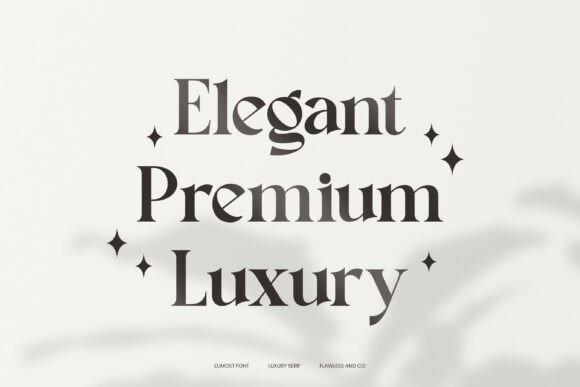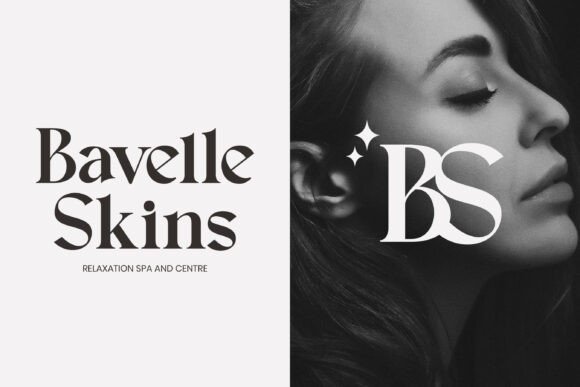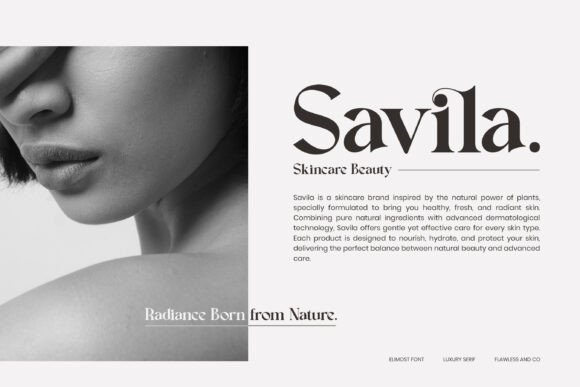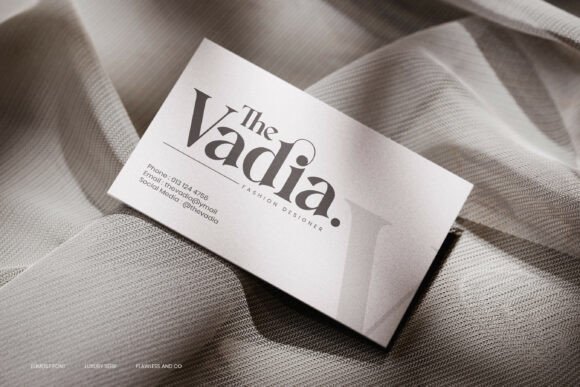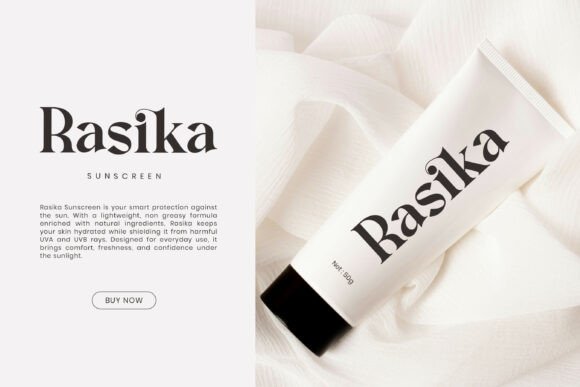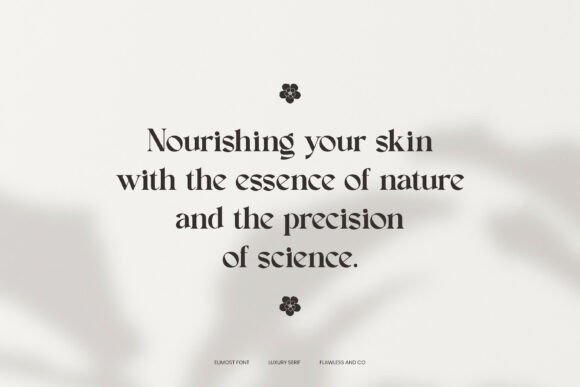
Introducing Elimost Font: The Epitome of Luxury and Sophistication
In the world of typography, few fonts manage to convey the essence of luxury and sophistication as effortlessly as Elimost. This stunning serif typeface is the perfect blend of modern elegance and timeless design, making it an indispensable tool for designers and crafters looking to elevate their projects to new heights. With its refined letterforms, graceful curves, and striking contrasts, Elimost is the ultimate choice for those seeking to add a touch of premium style to their creations.
The Design Philosophy Behind Elimost
Elimost is more than just a font – it’s a design statement. Crafted with versatility in mind, this luxury serif typeface balances modern beauty with classic charm, allowing designers to create works that stand out with confidence and refinement. The design philosophy behind Elimost is rooted in the pursuit of perfection, with a focus on clean lines, elegant curves, and a keen attention to detail. The result is a font that exudes sophistication and poise, making it perfect for high-end branding, fashion editorials, elegant invitations, and upscale packaging.
Key Features of Elimost Font
- Refined Letterforms: Elimost’s letterforms are meticulously crafted to convey a sense of luxury and refinement. Each character is designed to perfection, with a focus on clean lines, elegant curves, and precise proportions.
- Graceful Curves: The font features beautiful, flowing curves that add a touch of sophistication to any design. These curves are carefully crafted to create a sense of movement and fluidity, making Elimost perfect for projects that require a sense of dynamism.
- Striking Contrasts: Elimost’s striking contrasts between light and dark elements create a sense of visual hierarchy, making it easy to guide the viewer’s eye through your design. This feature is particularly useful for headings, titles, and other display text.
Applications of Elimost Font
Elimost’s luxurious aesthetic makes it the perfect choice for a wide range of applications, including:
- High-End Branding: Use Elimost to create a lasting impression with your brand identity. Its sophisticated design makes it perfect for logos, business cards, and other marketing materials.
- Fashion Editorials: Add a touch of glamour to your fashion editorials with Elimost. Its elegant design makes it perfect for headlines, captions, and other display text.
- Elegant Invitations: Make a statement with your invitations using Elimost. Its refined design makes it perfect for wedding invitations, formal events, and other special occasions.
- Upscale Packaging: Use Elimost to create premium packaging that stands out on store shelves. Its luxurious aesthetic makes it perfect for high-end products and luxury brands.
Why Choose Elimost Font?
With so many fonts available, why choose Elimost? Here are just a few reasons why designers and crafters are falling in love with this luxury serif typeface:
- Unique Design: Elimost’s unique design sets it apart from other fonts. Its blend of modern elegance and classic charm makes it perfect for designers looking to create something truly unique.
- Versatility: Elimost is incredibly versatile, making it perfect for a wide range of applications. Whether you’re designing a logo, creating a fashion editorial, or crafting an elegant invitation, Elimost is the perfect choice.
- High-Quality Typography: Elimost is crafted to perfection, with a focus on high-quality typography. Its refined letterforms, graceful curves, and striking contrasts make it perfect for designers who demand the best.
In conclusion, Elimost font is a game-changer for designers and crafters looking to add a touch of luxury and sophistication to their projects. With its refined letterforms, graceful curves, and striking contrasts, Elimost is the perfect choice for high-end branding, fashion editorials, elegant invitations, and upscale packaging. Its unique design, versatility, and high-quality typography make it an indispensable tool for anyone looking to create works that stand out with confidence and refinement.